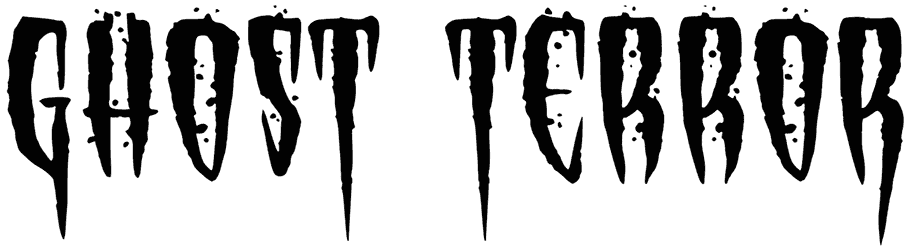
Ghost Terror Font
Now that you’re here, there’s no way to get out of here alive without downloading Ghost Terror! This ghost font is going to haunt you for life, so let’s make sure your audience gets a taste of that too.
It should just be noted that this witch font is without any lowercase letters or numerals. Still, it can help you design your Halloween posters, fantasy games, and so many other projects that you may not be able to imagine just yet.